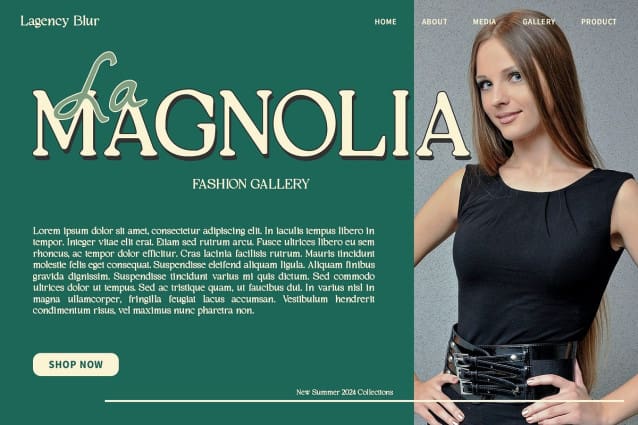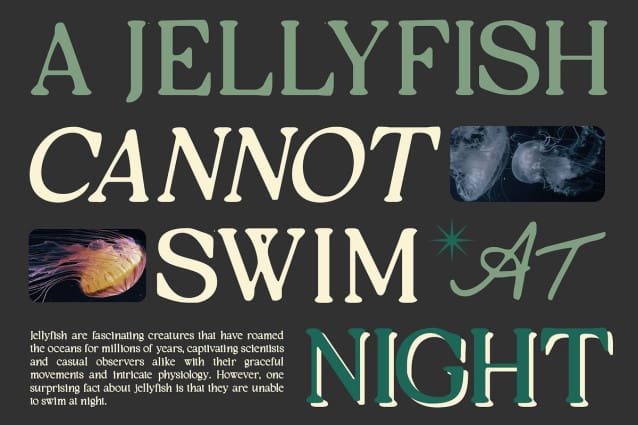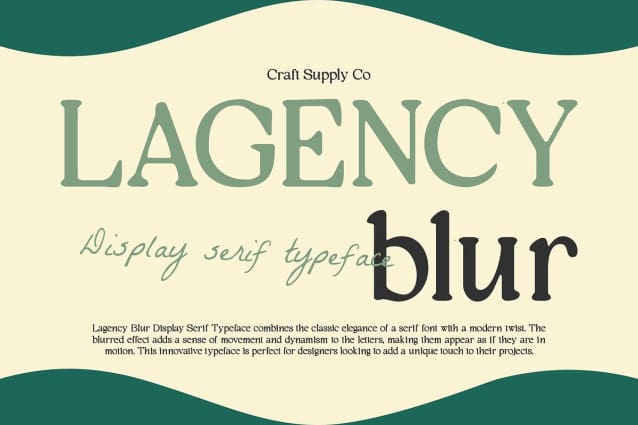
Lagency Blur Font
Lagency Blur Font is a serif font with an elegant style and a blur effect, suitable for display purposes. Its refined design and subtle blur create a sophisticated and artistic look, perfect for high-end branding, invitations, and other projects that require a touch of elegance.
With its graceful curves and blurred details, Lagency Blur offers a fresh take on serif fonts. The elegant style and subtle blur effect create a smooth and balanced appearance, adding a touch of refinement to any design project.
Whether you’re designing a luxury advertisement or creating an elegant logo, Lagency Blur is sure to make an impression. Its elegant style and blur effect make it perfect for displays that demand attention and convey a sense of sophistication and beauty.
Despite its intricate appearance, Lagency Blur is versatile and easy to use. The font works well in both large and small sizes, making it suitable for a variety of applications, from headlines and banners to body text and more. With its blend of elegance and blur effect, Lagency Blur adds a unique and artistic touch to any design.